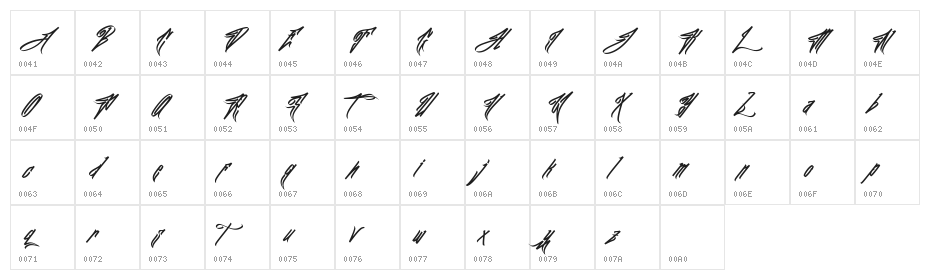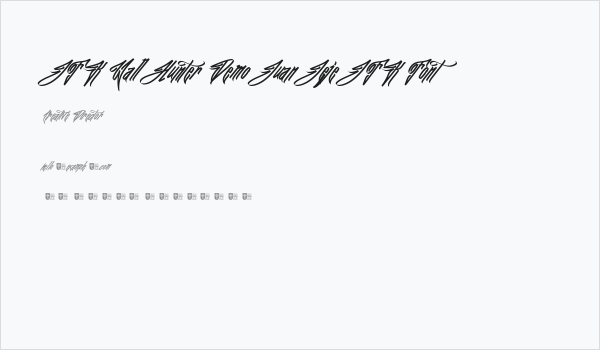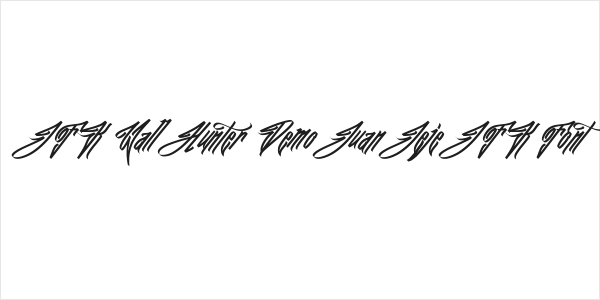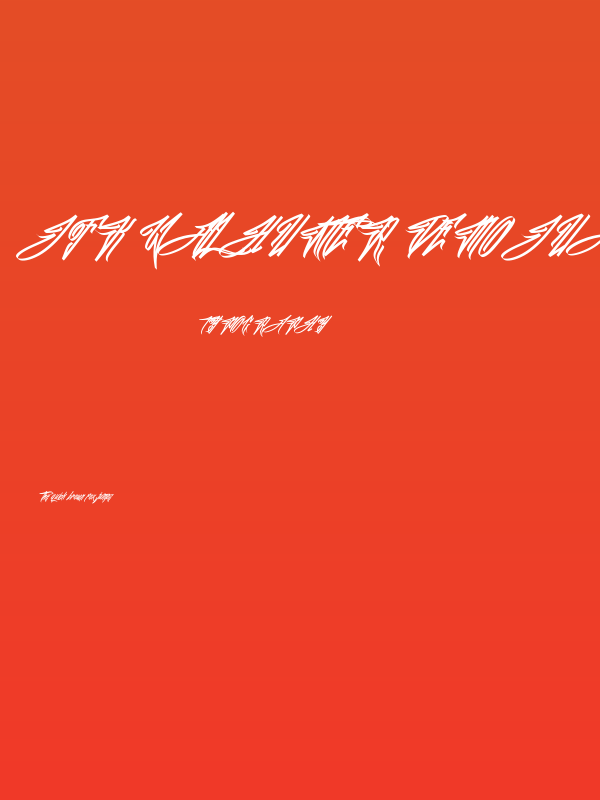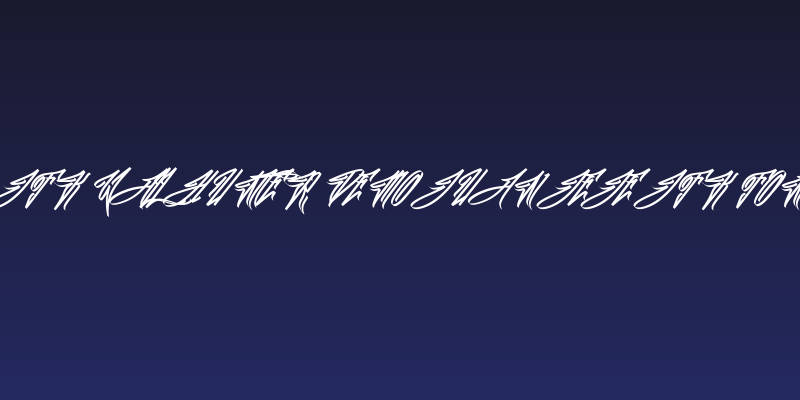
JFK Wall Hunter Demo Juan Jeje JFK Font Font
JFK Wall Hunter Demo Juan Jeje JFK Font Description
This font features an intricate and highly stylized script design, characterized by sharp, angular strokes and dramatic flourishes. The letters are interconnected, creating a flowing and dynamic appearance. The uppercase letters are particularly elaborate, with extended swashes that enhance the font's decorative nature. The lowercase letters maintain a consistent style, offering a cohesive look across the alphabet. The numbers and special characters follow the same ornate design, ensuring uniformity throughout. This font's unique style makes it stand out, suitable for projects that require a bold and artistic touch.
| Proposed Projects | Ideal for tattoo designs, album covers, posters, and branding that requires a bold, artistic flair. |